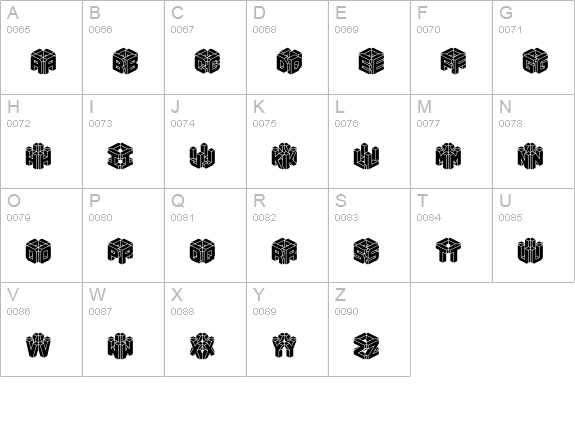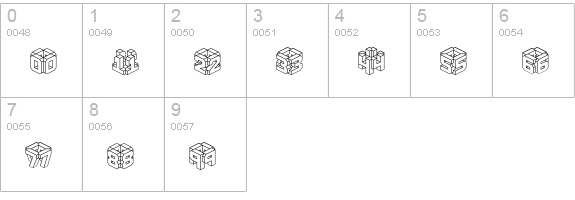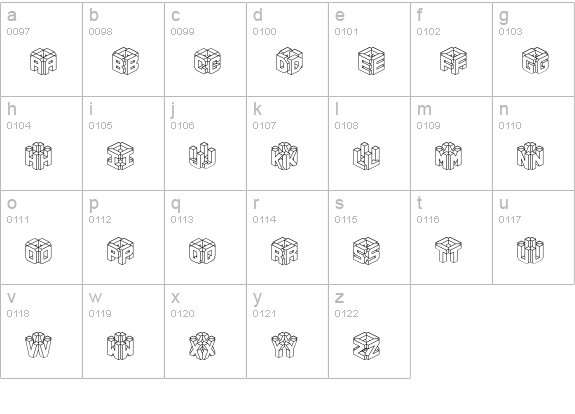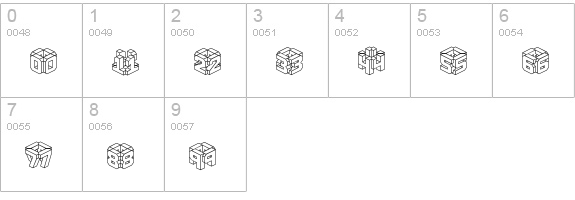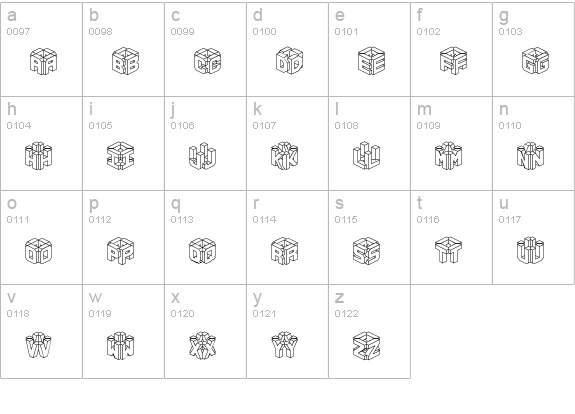
3D LET (BRK) Font Details
Introducing the captivating 3D LET (BRK) font, a stunning display typeface that effortlessly combines depth and dimension to create an eye-catching visual experience. This font is an absolute game-changer, designed with meticulous attention to detail to bring your designs to life like never before. With its unique three-dimensional appearance, 3D LET (BRK) commands attention and adds a touch of sophistication to any project. Each letter is meticulously crafted to create a seamless sense of depth, allowing your words to leap off the page and captivate your audience. Whether you're designing logos, headlines, posters, or any other creative endeavor, this font is sure to make a lasting impression. One of the standout features of 3D LET (BRK) is its versatility. This font effortlessly adapts to various design styles, from modern and edgy to classy and elegant. Its clean lines and bold presence make it suitable for a wide range of applications, ensuring it will seamlessly integrate into your design vision. The best part? This exceptional font is freely available for download at FontsMarket.com. Now you can elevate your design projects without breaking the bank. Simply visit FontsMarket.com, find the 3D LET (BRK) font, and unlock a world of creative possibilities at your fingertips. In conclusion, the 3D LET (BRK) font is the epitome of design innovation, effortlessly combining depth and dimension to create a visually striking experience. Its versatility and attention to detail make it a must-have for any designer looking to make a bold statement. Download this font for free at FontsMarket.com, and let your creativity soar to new heights.